Best Quality Fonts 2026: Beauty, Function, and Emotional Value
Judge Quality in Context
The best quality fonts 2026 are not simply the most decorative. A quality typeface should create the right impression, remain dependable at intended sizes, support useful character combinations, and help a brand communicate a recognizable personality.
Start by defining the font’s role. A display face for a perfume logo has different requirements from a font used for captions or long articles. Test real brand names, numbers, punctuation, packaging sizes, social thumbnails, and print proofs rather than judging only a specimen image.
Quality also includes restraint. An expressive font can be excellent even when it is unsuitable for body copy. What matters is whether its construction, features, and personality fit the job.
1. Stormsong New Tribal Concept Font
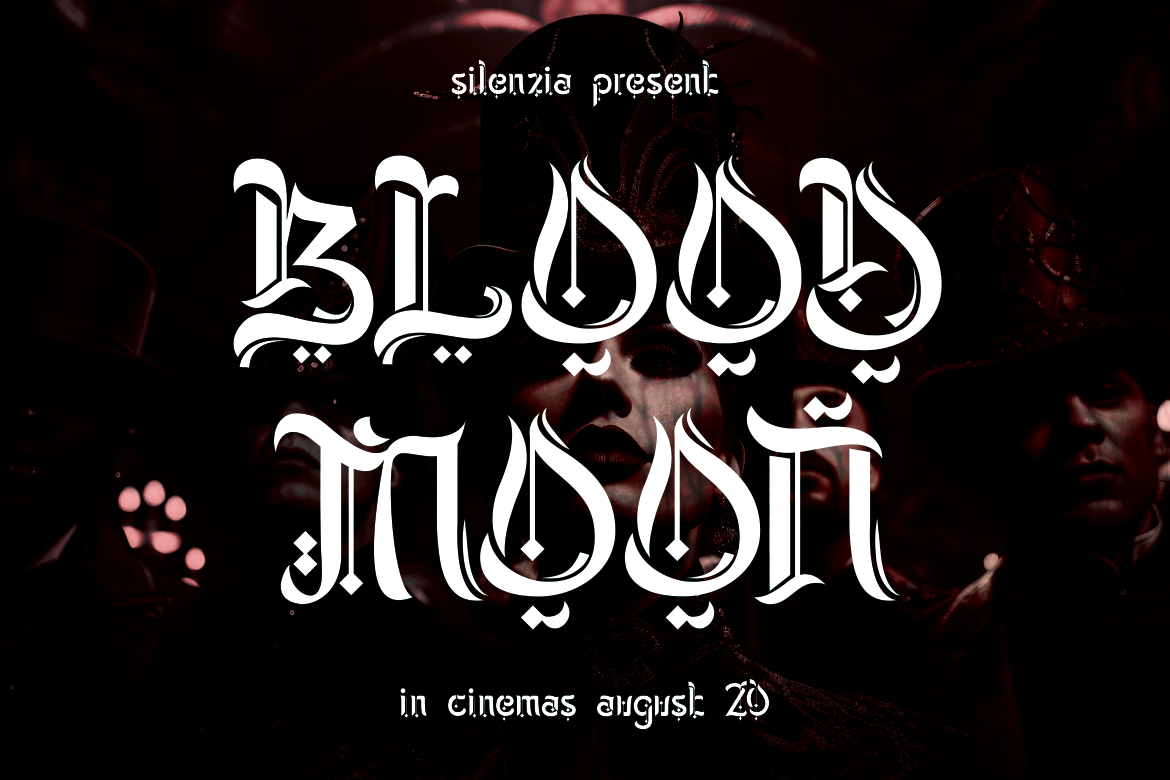
Stormsong combines sharp angular construction, jagged details, and tribal-inspired forms with a darker supernatural mood. Its distinctive silhouette gives short words immediate recognition, making it especially useful when quality means creating a strong emotional identity rather than neutral versatility. PutraCetol positions it for branding, posters, packaging, streetwear, music, and other expressive display applications.
PROS: Strong silhouette, angular detailing, memorable dark personality, high display impact.
BEST FOR: Alternative fashion, metal branding, supernatural entertainment, posters, packaging, tattoos, and experimental identities.
2. Hikaya Mirage Arabic Display Font
Hikaya Mirage uses elegant curves and an Arabic-inspired visual direction to create a sophisticated cultural atmosphere. Its strength lies in storytelling, allowing packaging, event titles, posters, and branding to communicate a Middle Eastern-inspired mood while retaining a contemporary display character.
PROS: Elegant curves, distinctive cultural atmosphere, expressive display quality.
BEST FOR: Cultural events, hospitality, packaging, book covers, invitations, and themed branding.
For actual Arabic-language text, verify native Arabic-script coverage separately and use an appropriate Arabic typeface when required.
3. Tofes Modern Serif Font
Tofes represents quality through restraint and flexibility. Its clean modern serif structure feels polished without becoming overly ornamental, while OpenType alternates, ligatures, multilingual support, numerals, punctuation, and symbols give designers more practical control across branding and editorial applications.
PROS: Clean modern serif, alternates and ligatures, multilingual support, sophisticated personality.
BEST FOR: Luxury branding, beauty, hospitality, packaging, logos, editorial covers, and premium campaigns.
4. Monck Modern Display Typeface
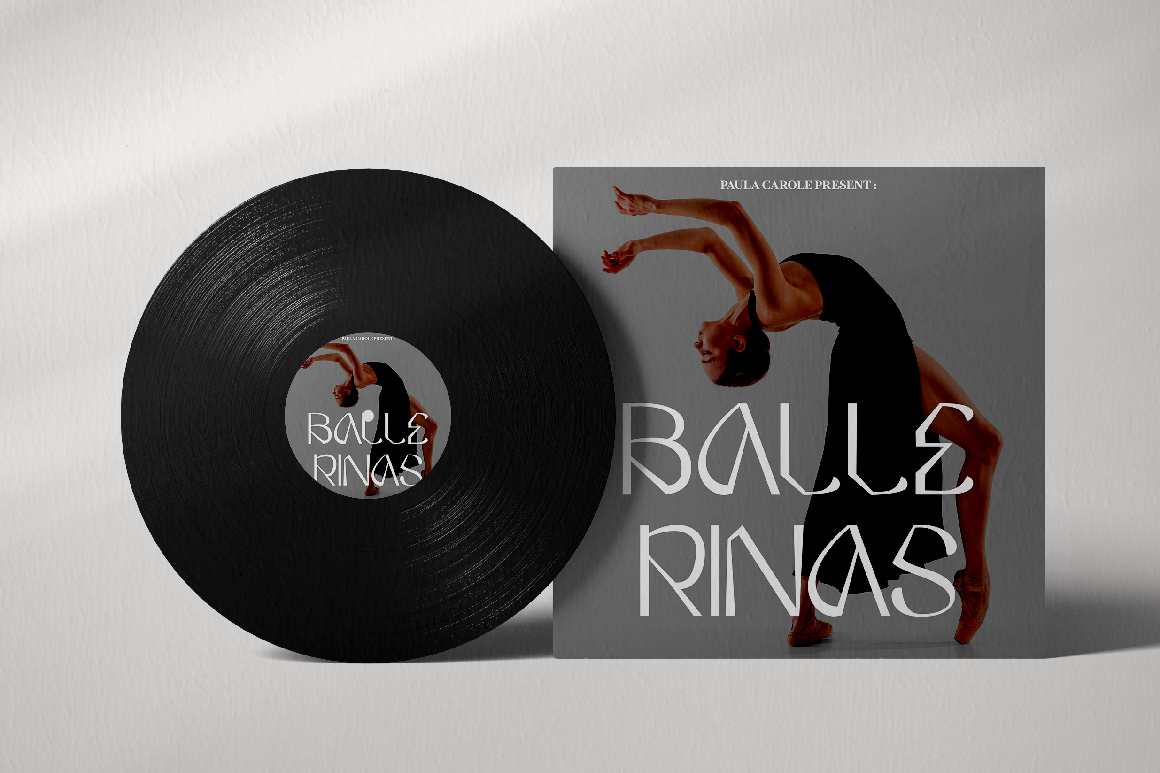
Monck blends modern lettering with classic poster and serif influences. Its numerous alternates, ligatures, and end swashes make short words highly customizable, which is valuable for designers who want a wordmark to feel crafted without creating every letter from scratch. It also includes multilingual support and multiple common font formats.
PROS: Extensive alternates, end swashes, flexible lettering combinations, modern-classic personality.
BEST FOR: Logos, product packaging, posters, merchandise, music artwork, campaign headlines, and social graphics.
5. Summer Roadtrip Retro Script
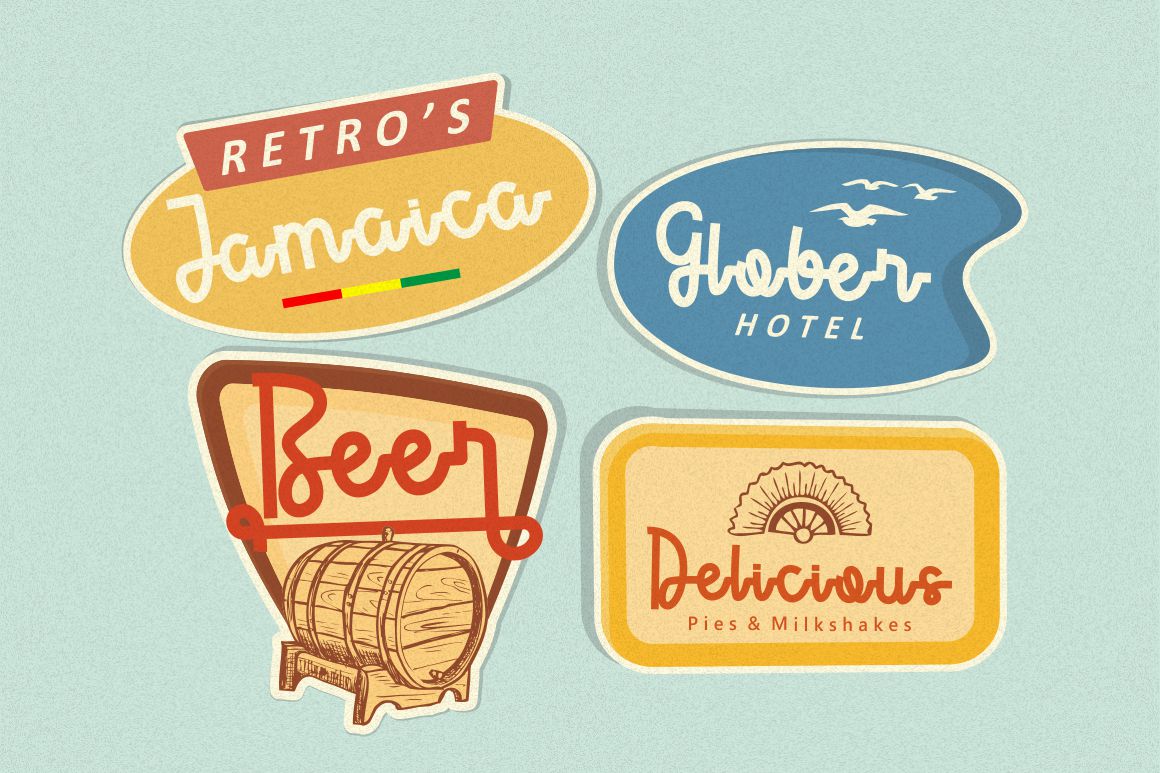
Summer Roadtrip brings quality through personality and emotional warmth. Its playful handwritten construction, retro mood, charming ligatures, alternate characters, and multilingual support create a more personal feeling than rigid geometric typography. The result works especially well when a brand needs nostalgia, friendliness, or handcrafted energy.
PROS: Hand-drawn character, playful ligatures, alternates, nostalgic emotional appeal.
BEST FOR: Travel brands, apparel, lifestyle packaging, social campaigns, posters, merchandise, and youthful identities.
How to Evaluate Font Quality
Test Readability in Real Conditions
Do not judge a font only at 72 pixels. Test it on packaging, mobile graphics, printed cards, posters, and thumbnails. Display fonts should maintain a recognizable word shape at realistic headline sizes, while supporting fonts should prioritize easier reading.
Evaluate Emotional Fit
A technically polished font can still be wrong for the brand. Stormsong communicates something very different from Tofes, just as Summer Roadtrip creates a different experience from Hikaya Mirage.
Quality includes whether the typeface communicates the intended personality before the audience reads the complete message.
Comparison
| Font | Main Quality | Emotional Direction | Strongest Application |
|---|---|---|---|
| Stormsong | Distinctive silhouette | Dark and powerful | Alternative branding |
| Hikaya Mirage | Cultural atmosphere | Elegant and poetic | Cultural campaigns |